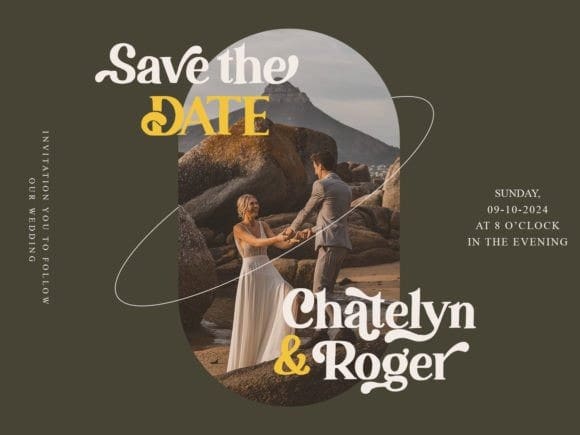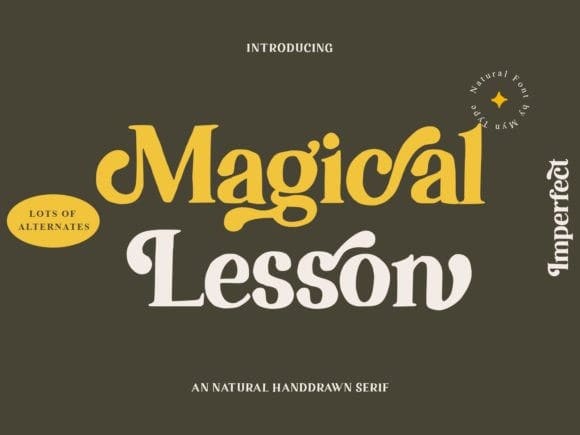
Magical Lesson Font
Magical Lesson Font a serif font with a touch of natural hand letter combines the classic and elegant appearance of serif typography with the organic, flowing qualities of hand letter. This unique fusion results in a typeface that bridges the gap between traditional and contemporary design, making it an appealing choice for a wide range of applications.